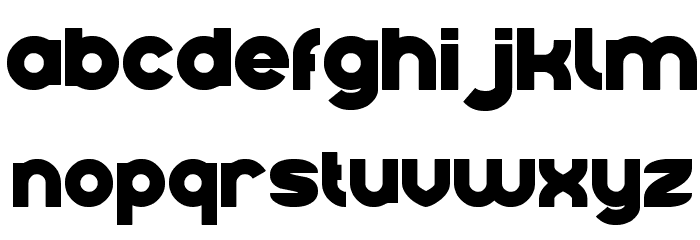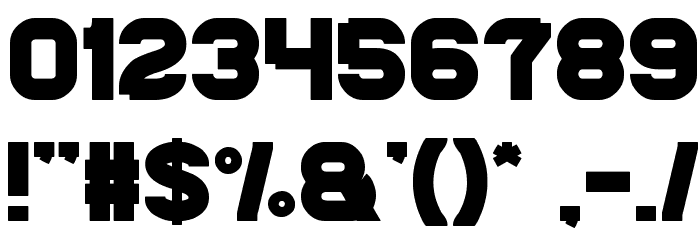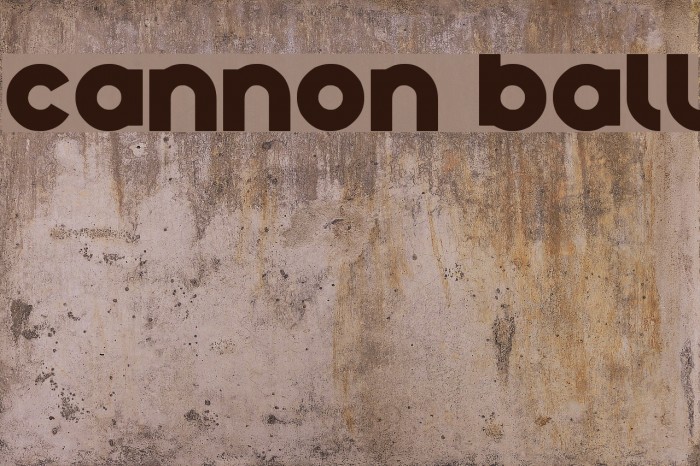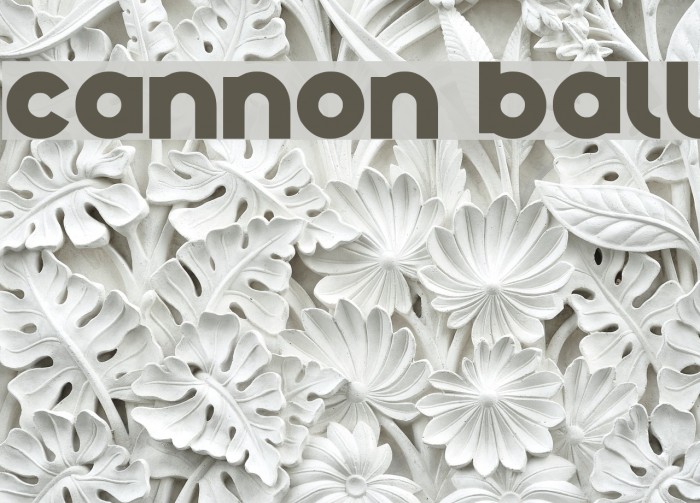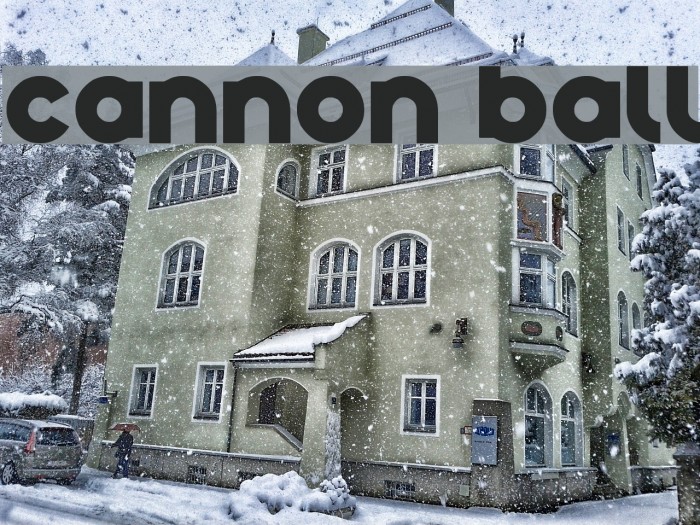
cannon ball Font
This font features bold, geometric shapes with a strong, impactful presence. The characters are uniformly thick, creating a sense of stability and strength. The uppercase letters have a blocky, almost industrial feel, while the lowercase letters maintain a consistent roundness that adds a touch of softness to the overall design. The numbers and special characters follow the same bold style, ensuring a cohesive look across all elements. The font's design is modern and assertive, making it ideal for attention-grabbing headlines and logos.
A bold, geometric font with a strong, modern presence.
- Proposed Projects: Ideal for branding, posters, headlines, and any project requiring a bold statement.